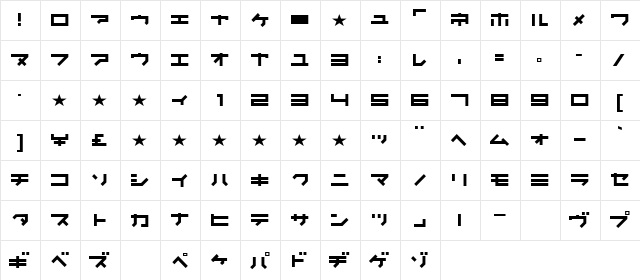
Kunstware2.0 KAT 2.0 KAT
Design Context for Kunstware2.0 KAT Typeface
Kunstware2.0 KAT takes a measured approach to typography — its balanced proportions and neutral character make it a reliable workhorse for both digital and print work.
Pro Tip: Use Kunstware2.0 KAT in both headline and body roles to test its range before committing to a single application.